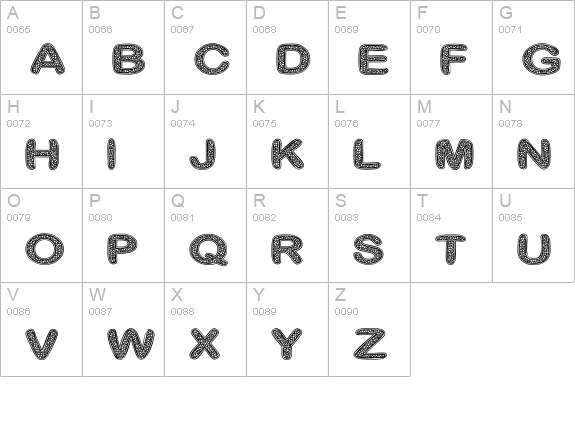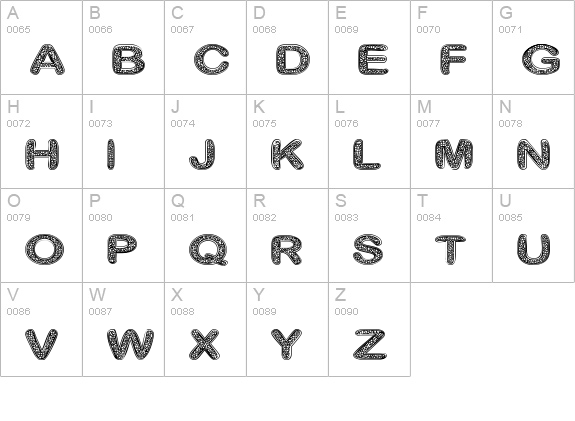
Crinkle Cut Glass Font Details
Crinkle Cut Glass font is a unique and eye-catching typeface that brings a touch of elegance and sophistication to any design project. With its intricate details and sharp edges, this font exudes a sense of modernity and style. The crinkled texture of the letters gives them a distinct look that is both intriguing and visually striking. The Crinkle Cut Glass font is perfect for a wide range of design applications, from logos and branding to headlines and posters. Its versatility allows it to be used in both digital and print projects, making it a valuable addition to any designer's toolkit. Best of all, the Crinkle Cut Glass font is available for free download at FontsMarket.com. This means that you can easily access this stunning typeface and use it in your projects without any cost. Don't miss out on the opportunity to enhance your designs with the Crinkle Cut Glass font today!